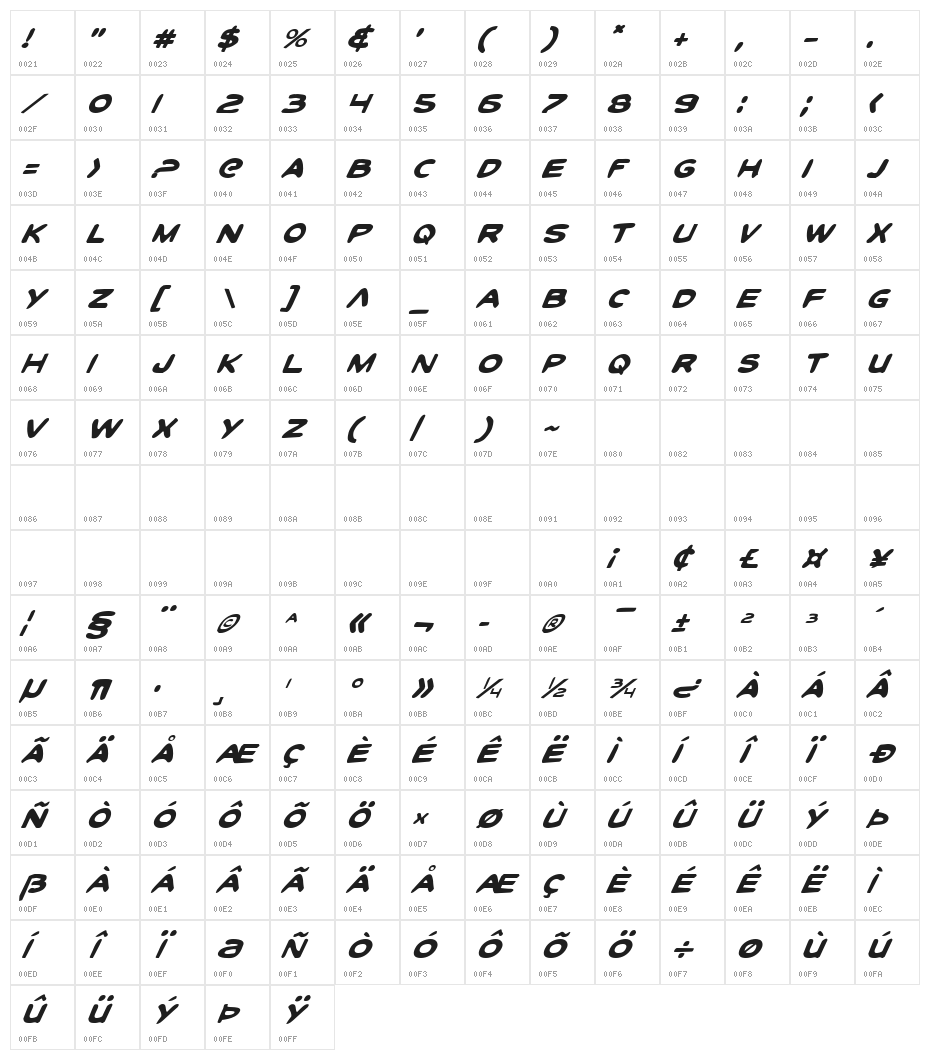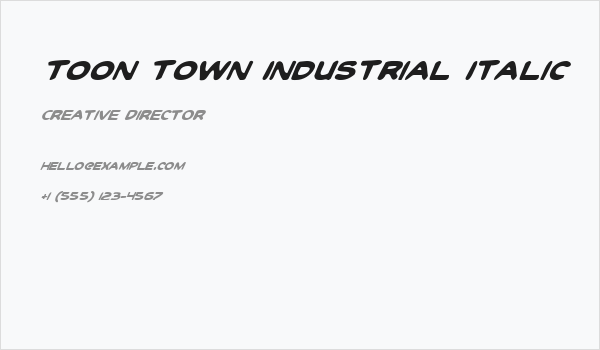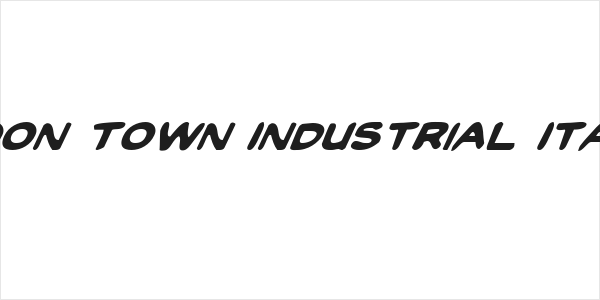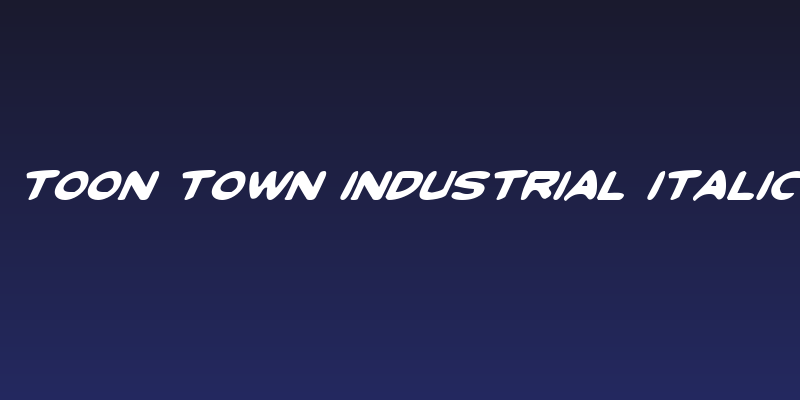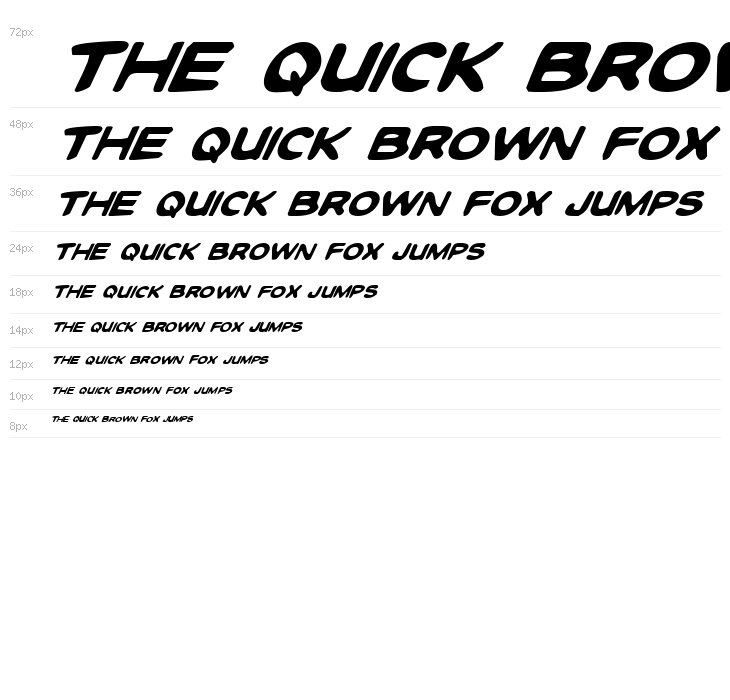
Toon Town Industrial Italic Font
Toon Town Industrial Italic Description
This font features a playful and bold style with a distinct italic slant, giving it a dynamic and energetic appearance. The characters are thick and rounded, providing a sense of friendliness and approachability. The uppercase and lowercase letters maintain a consistent style, with smooth curves and a slightly condensed form. The numbers and special characters follow the same design principles, ensuring uniformity across all glyphs. This font is ideal for projects that require a fun and engaging look, such as children's books, cartoons, or playful branding.
| Overall Style | Playful, Energetic |
| Proposed Projects | Ideal for children's books, cartoon titles, playful branding, and promotional materials. |